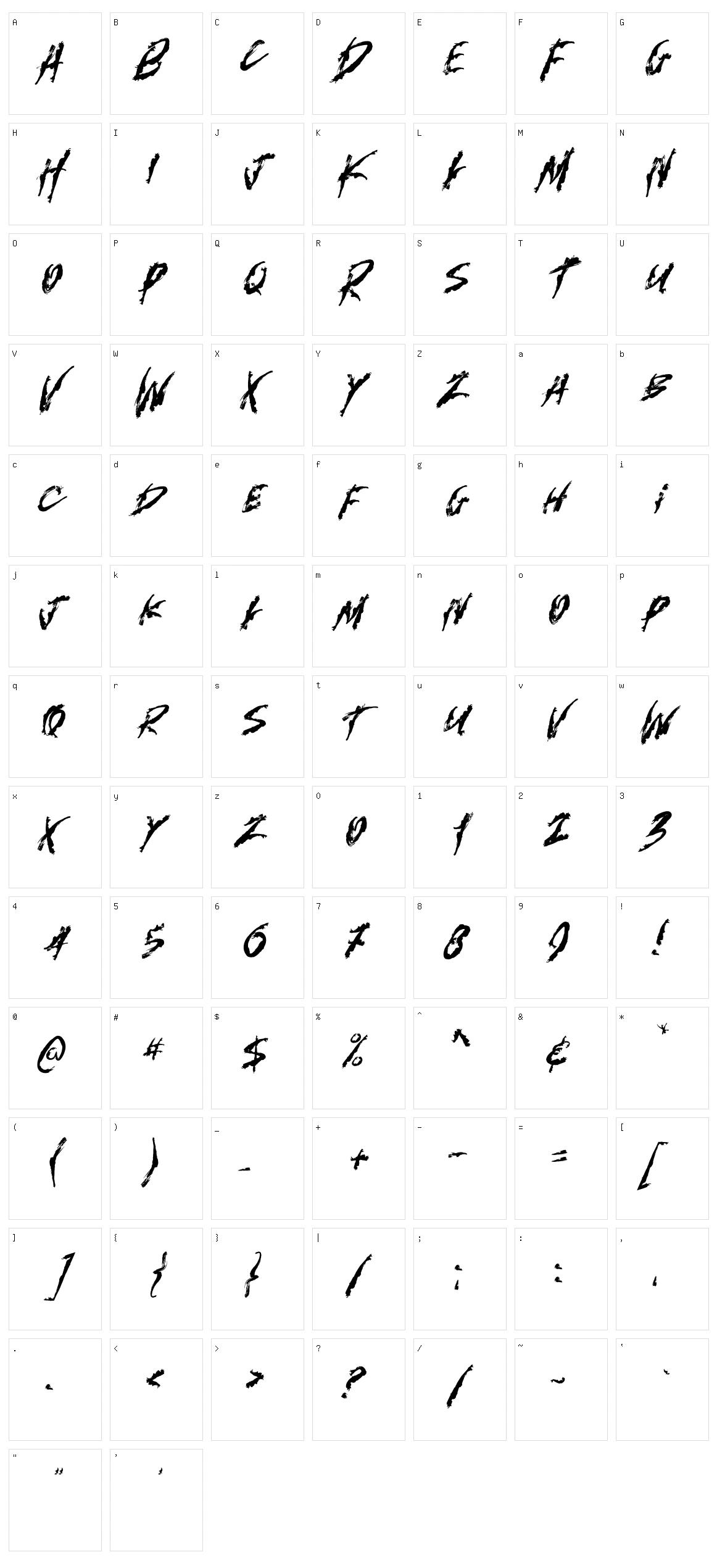
The free font Kosan Murah! is carefully designed by StringLabs Creative Studio, showcasing a thoughtful balance of creativity and usability and falls under the Horror font style. When you download the ZIP file, it contains only 576.17 KB of font files, making it lightweight and quick to download. Please review the license details below to understand permitted usage and distribution rights. If license information is not available, we recommend using this font for personal projects only or contacting the author directly for commercial usage permissions.